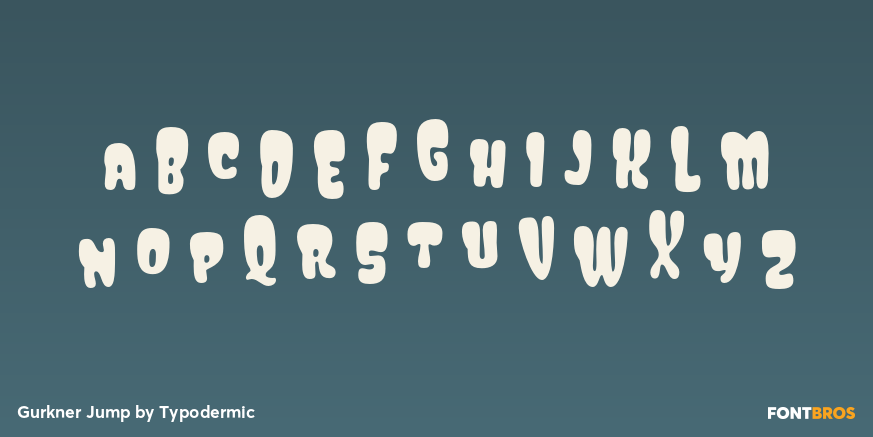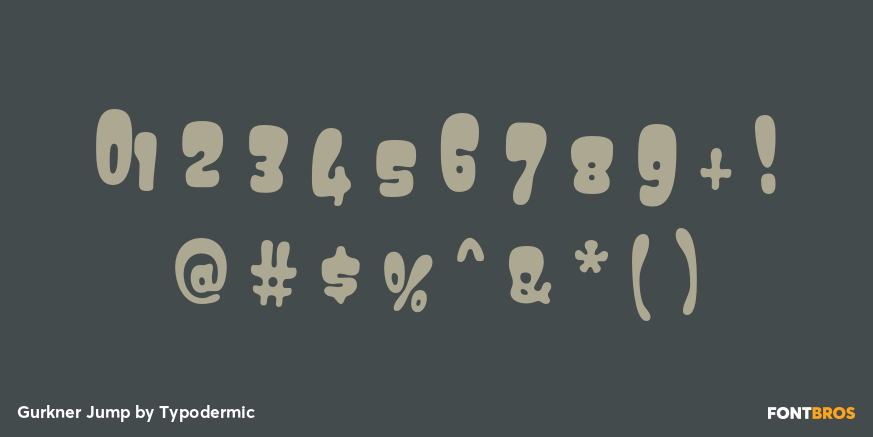
Gurkner Jump
Buy NowGurkner Jump is a true alternate construction, not a weight or posture change. It keeps Gurkner’s rounded all-capital vocabulary, but reworks it with narrower characters whose heights and vertical positions vary from letter to letter. Capitals rise and dip instead of sharing Regular’s level baseline and cap line, building an animated rhythm into every new word without manual baseline adjustments.
Use Gurkner Jump for gummy and candy flavor names, blind-box character labels, squishy-toy editions, children’s activity-zone signs, arcade and trampoline-area names, party-package graphics, seasonal retail displays, and animated title cards. It is the more energetic choice when a project needs a bouncy rounded display font or irregular-baseline lettering, while Gurkner Regular can hold master-brand names, navigation, prices, and other steadier information.